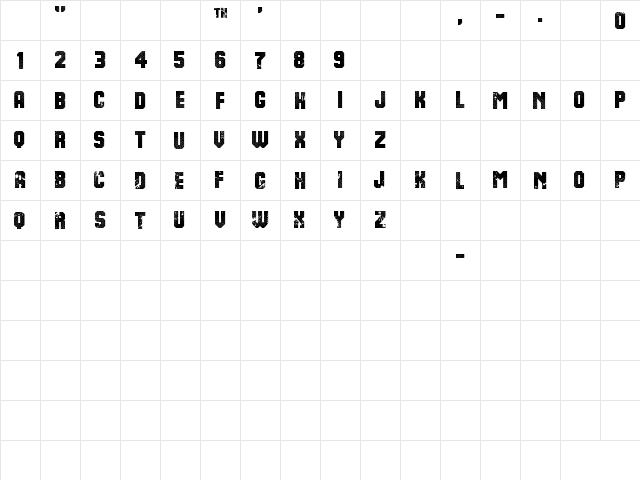
8th Cargo Regular
Design Context for 8th Cargo Typeface
8th Cargo takes a measured approach to typography — its balanced proportions and neutral character make it a reliable workhorse for both digital and print work.
Dating back to 2012, this typeface is available in TrueType (TTF) format.